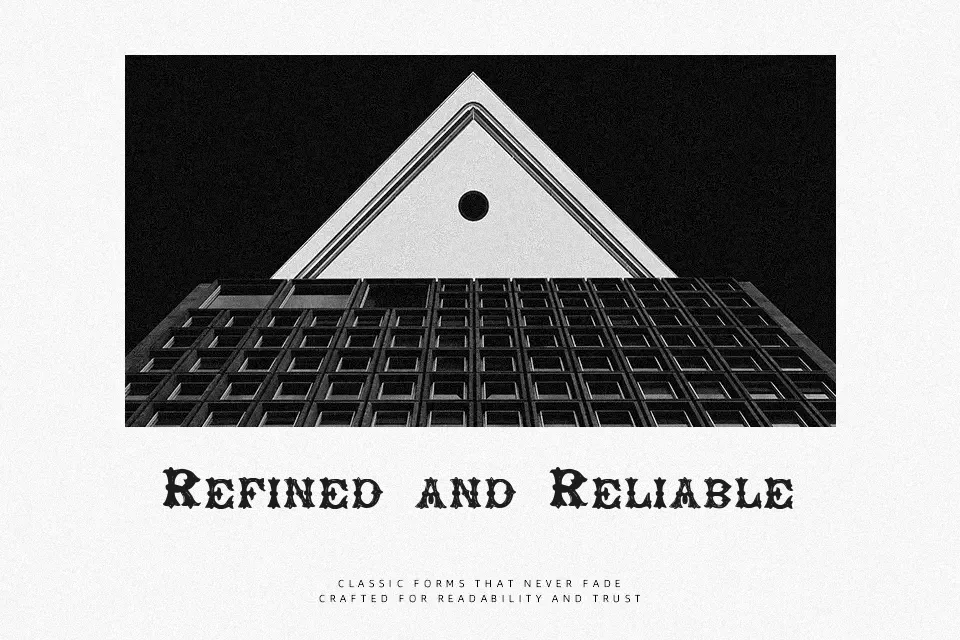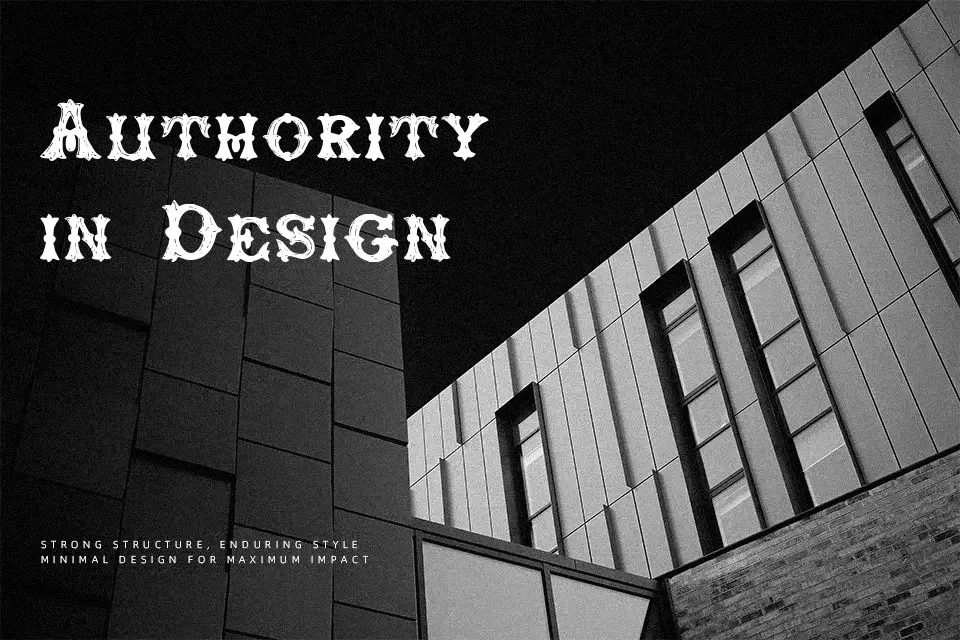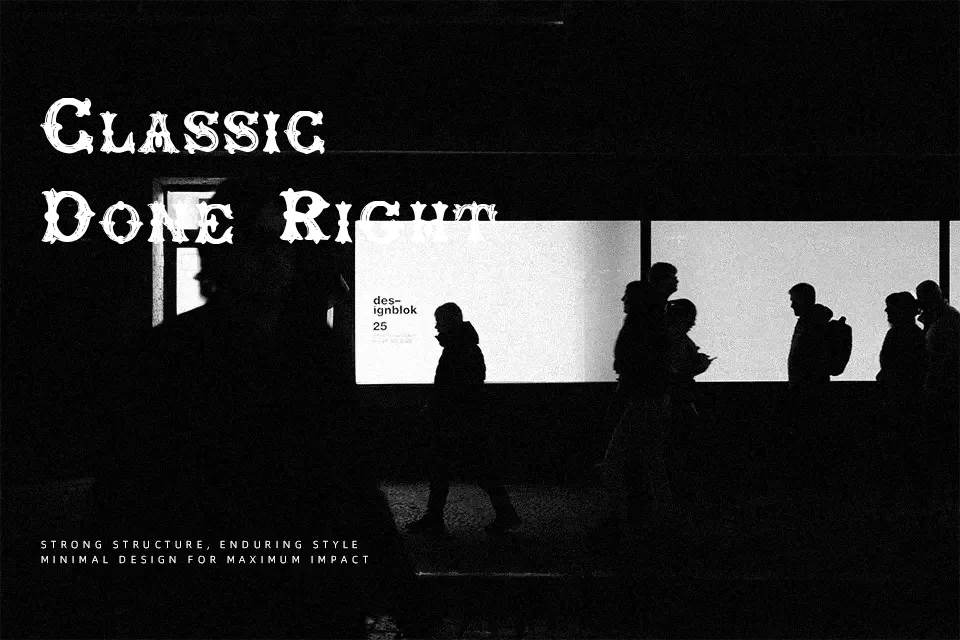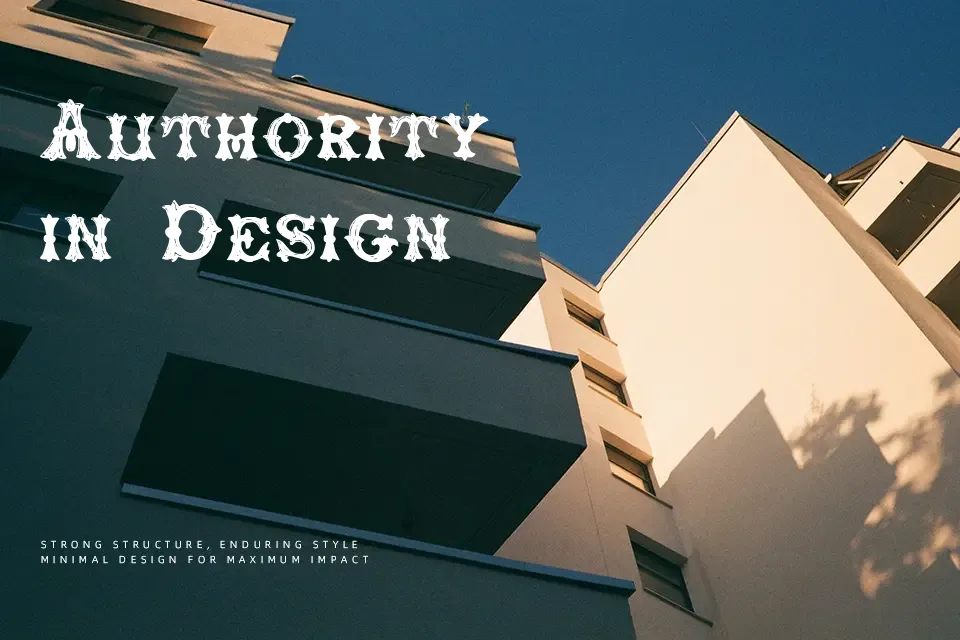
Rough Tuscan Font
Rough Tuscan Font immediately establishes a weathered, historical aesthetic through its heavily textured strokes and pronounced bifurcated serifs. The letterforms display robust, wide proportions that command attention, accompanied by deliberate structural irregularities that mimic traditional letterpress printing. Because of the aggressive distressing and complex terminal details, the spacing feels comfortably open in large settings, ensuring the visual rhythm remains balanced. The heavy decorative elements maintain strong visibility in large display text, making the typeface highly effective for bold headlines. However, the rough edges and ornate styling severely reduce comfort during extended reading, meaning it is less suitable for long paragraphs or small captions.
Best For: vintage product packaging, western festival posters, retro coffee shop menus, apparel graphics
Not Ideal For: long paragraph text, small interface labels, dense editorial layouts
Perfect for branding, headline, and packaging, with a classic and decorative style.